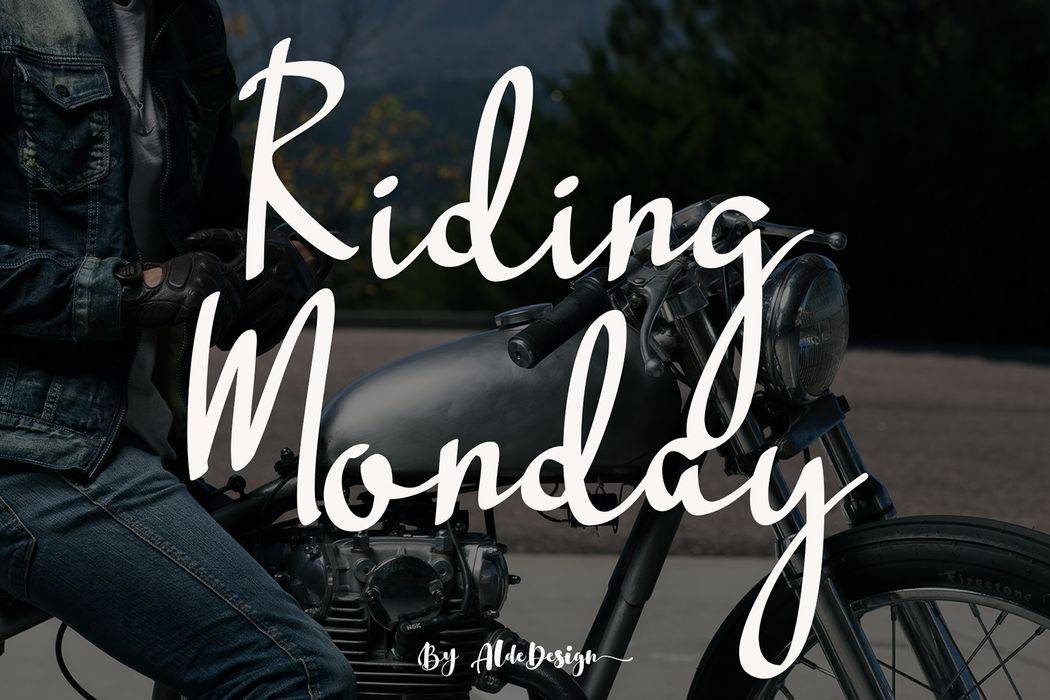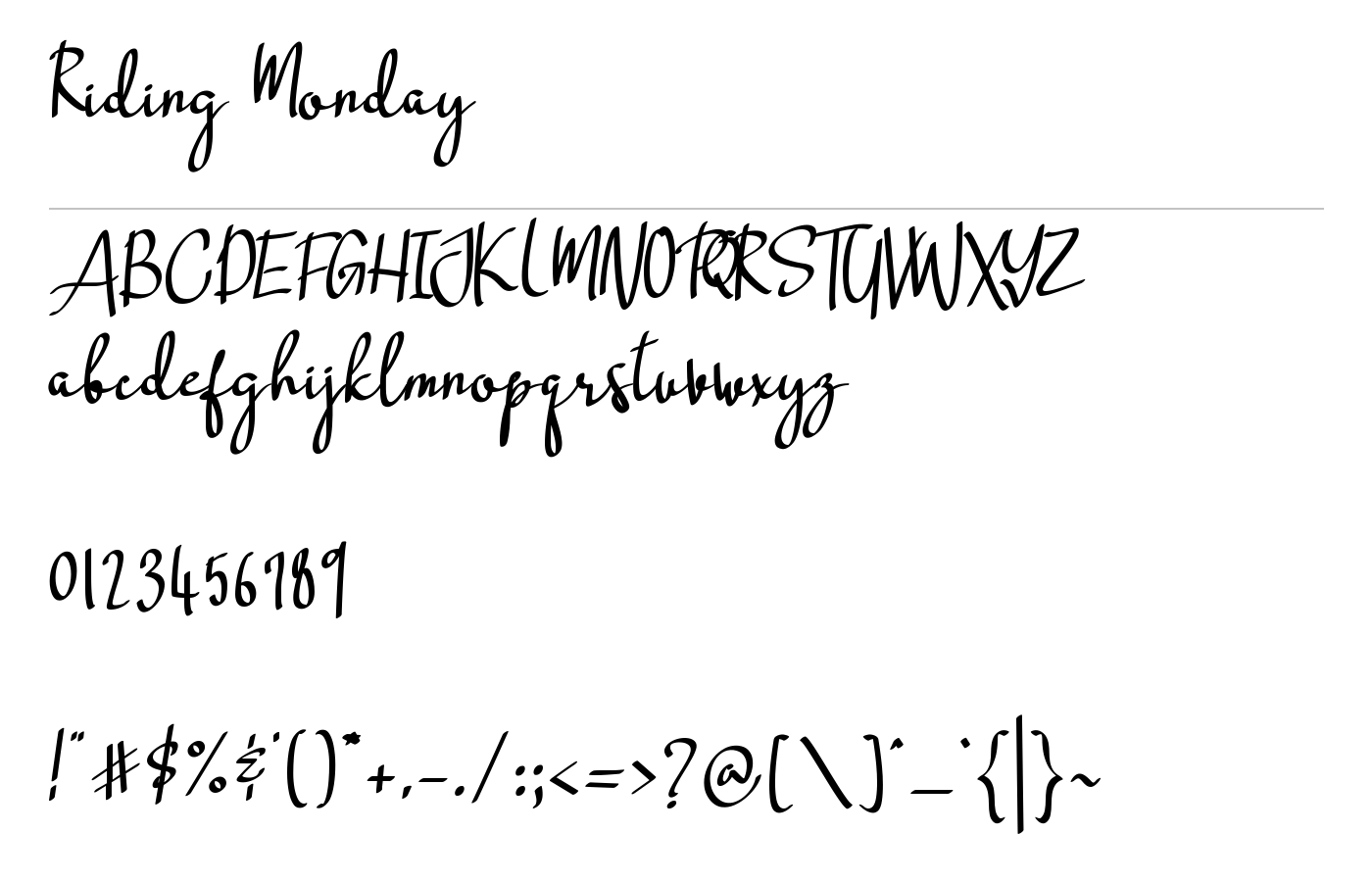
Riding Monday is a lively handwritten script font with a casual, slightly whimsical feel, featuring tall, narrow letterforms and varying stroke widths that simulate natural pen strokes. Its energetic style suits creative projects, branding, and invitations where a personal, approachable touch is desired. This font works well for headlines and logos, adding warmth and personality without sacrificing legibility.
Riding Monday Font
About Riding Monday Font
| Font family | Riding Monday Font |
| Designer | Aldedesign 2019 |